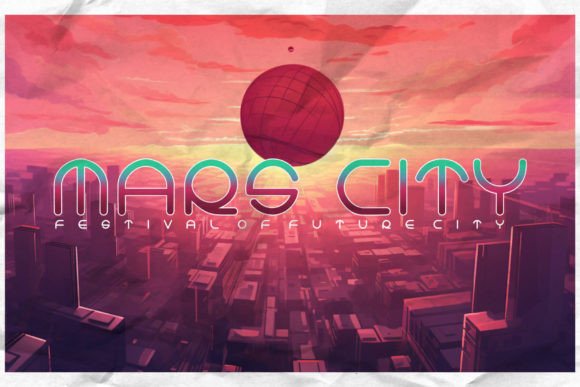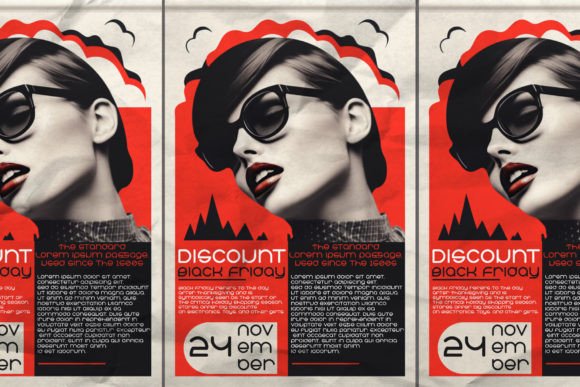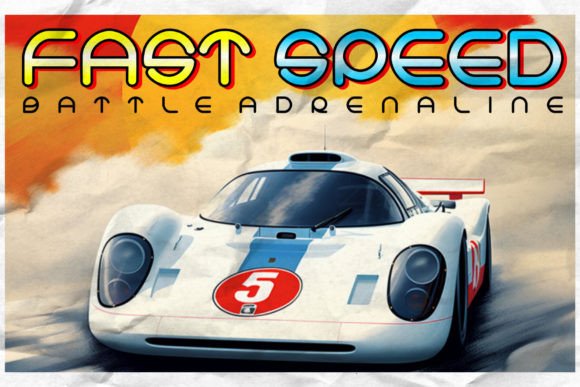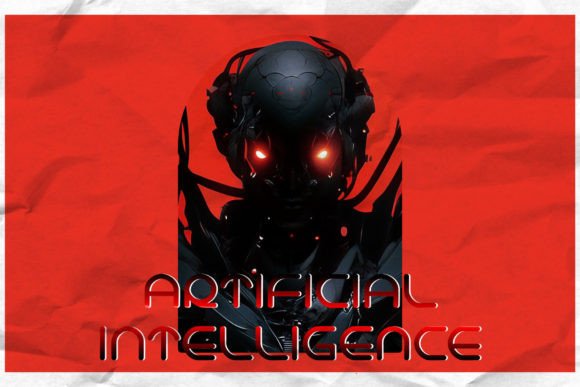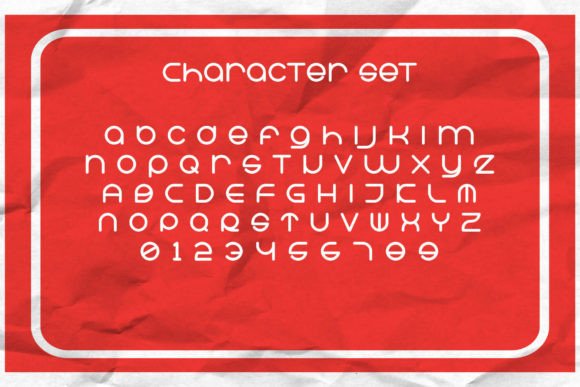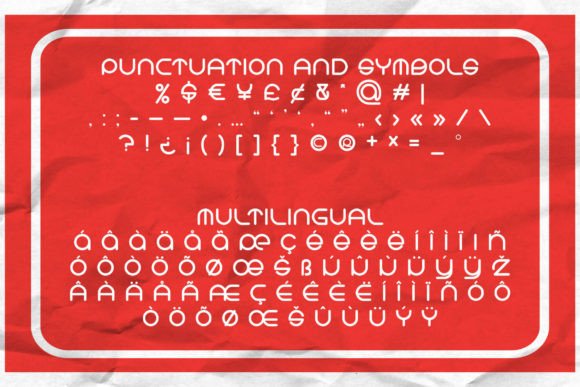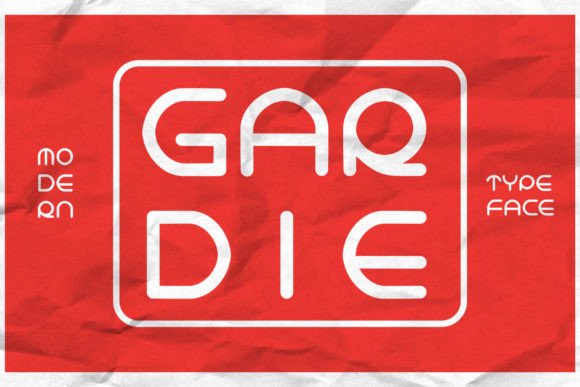
Gardie Font: The Quirky and Fun Display Font You Need
Are you tired of using the same old fonts in your designs? Do you want to add a touch of personality and whimsy to your creations? Look no further than the Gardie Font, a quirky and fun display font that’s sure to elevate your font library.
What is Gardie Font?
Gardie Font is a unique and eye-catching display font that’s perfect for designers and crafters looking to add some excitement to their work. With its playful and irregular shape, Gardie Font is sure to stand out from the crowd and make your designs pop.
Why You Need Gardie Font in Your Library
No matter the topic or theme, Gardie Font is an incredible asset to have in your font library. Its versatility and charm make it perfect for a wide range of design projects, from:
- Headings and titles: Add a touch of personality to your headings and titles with Gardie Font’s quirky and fun style.
- Signage and posters: Make your signage and posters stand out with Gardie Font’s bold and eye-catching design.
- Branding and logos: Use Gardie Font to create unique and memorable branding and logos that will set your business apart.
- Social media graphics: Add some personality to your social media graphics with Gardie Font’s playful and engaging style.
Key Features of Gardie Font
So, what makes Gardie Font so special? Here are some of its key features:
- Quirky and fun design: Gardie Font’s playful and irregular shape makes it perfect for designs that need a touch of personality.
- Highly legible: Despite its quirky design, Gardie Font is highly legible, making it perfect for use in a wide range of design projects.
- Versatile: Gardie Font can be used for a wide range of design projects, from headings and titles to signage and posters.
How to Use Gardie Font in Your Designs
Using Gardie Font in your designs is easy. Here are some tips to get you started:
- Pair it with a simple font: Pair Gardie Font with a simple font to create a striking contrast and make your designs stand out.
- Use it for headings and titles: Use Gardie Font for headings and titles to add a touch of personality and whimsy to your designs.
- Experiment with colors: Experiment with different colors to find the perfect combination that brings out the best in Gardie Font.
In conclusion, Gardie Font is a quirky and fun display font that’s perfect for designers and crafters looking to add some personality and whimsy to their designs. With its highly legible and versatile design, Gardie Font is an incredible asset to have in your font library. So, why not give it a try and see how it can elevate your designs?
- Is Gardie Font suitable for body text?: While Gardie Font is highly legible, it’s best suited for headings and titles. For body text, a simpler font may be more suitable.